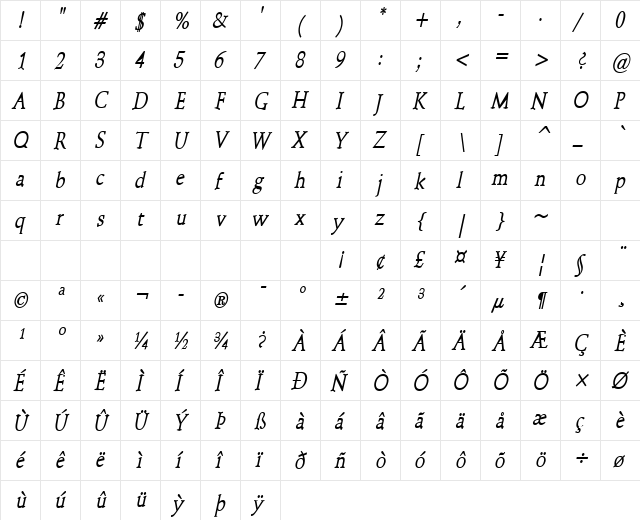
Schroeder-Condensed Bold Italic Font Preview
Design Context for Schroeder-Condensed Typeface
Schroeder-Condensed takes a measured approach to typography — its balanced proportions and neutral character make it a reliable workhorse for both digital and print work. The slanted form adds forward momentum and visual energy. The heavy weight commands attention and anchors typographic hierarchies. The condensed width makes it efficient for tight spaces without sacrificing legibility.